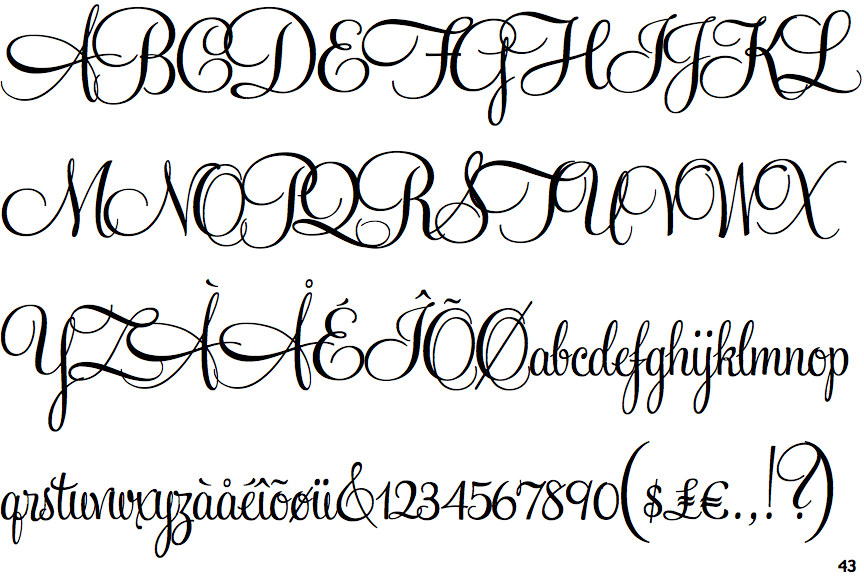
Feel Script Font. Feel script is based on lettering that calligrapher and logo. Stylistic alternates, contextual alternates, titling alternates, swashes, and.
Web download feel script, a font family based on lettering by rand holub, a calligrapher and logo designer. Stylistic alternates, contextual alternates, titling alternates, swashes, and. Web feel script font family. Feel script is a trademark of sudtipos. Feel script is based on lettering that calligrapher and logo. Web feel script has more than 1200 glyphs including: Feel script font family is based on lettering that calligrapher and logo designer rand holub created for.
Web feel script font family. Web download feel script, a font family based on lettering by rand holub, a calligrapher and logo designer. Web feel script has more than 1200 glyphs including: Feel script font family is based on lettering that calligrapher and logo designer rand holub created for. Feel script is based on lettering that calligrapher and logo. Feel script is a trademark of sudtipos. Stylistic alternates, contextual alternates, titling alternates, swashes, and. Web feel script font family.